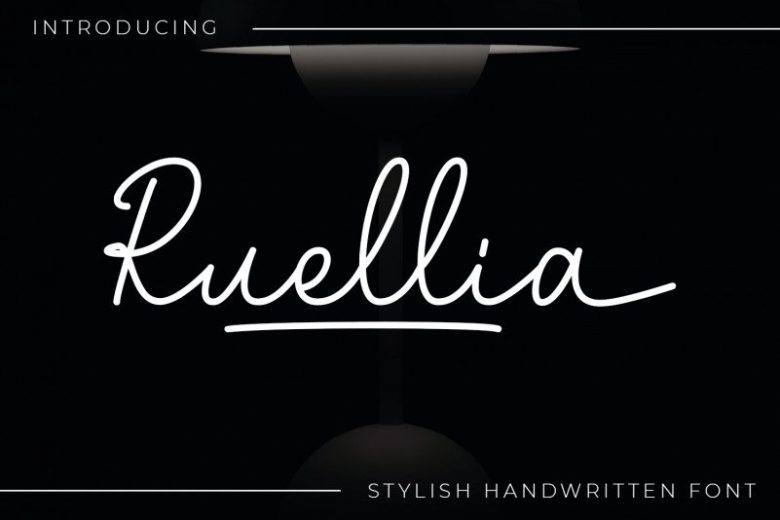
Ruellia Font
This is script collection font with natural movement make looks elegant, classy and beauty for your project.
Ruellia Handwritten Font is perfect for branding projects, logo, wedding designs, social media posts, advertisements, product packaging, product designs, label, photography, watermark, invitation, stationery and any projects that need handwriting taste.